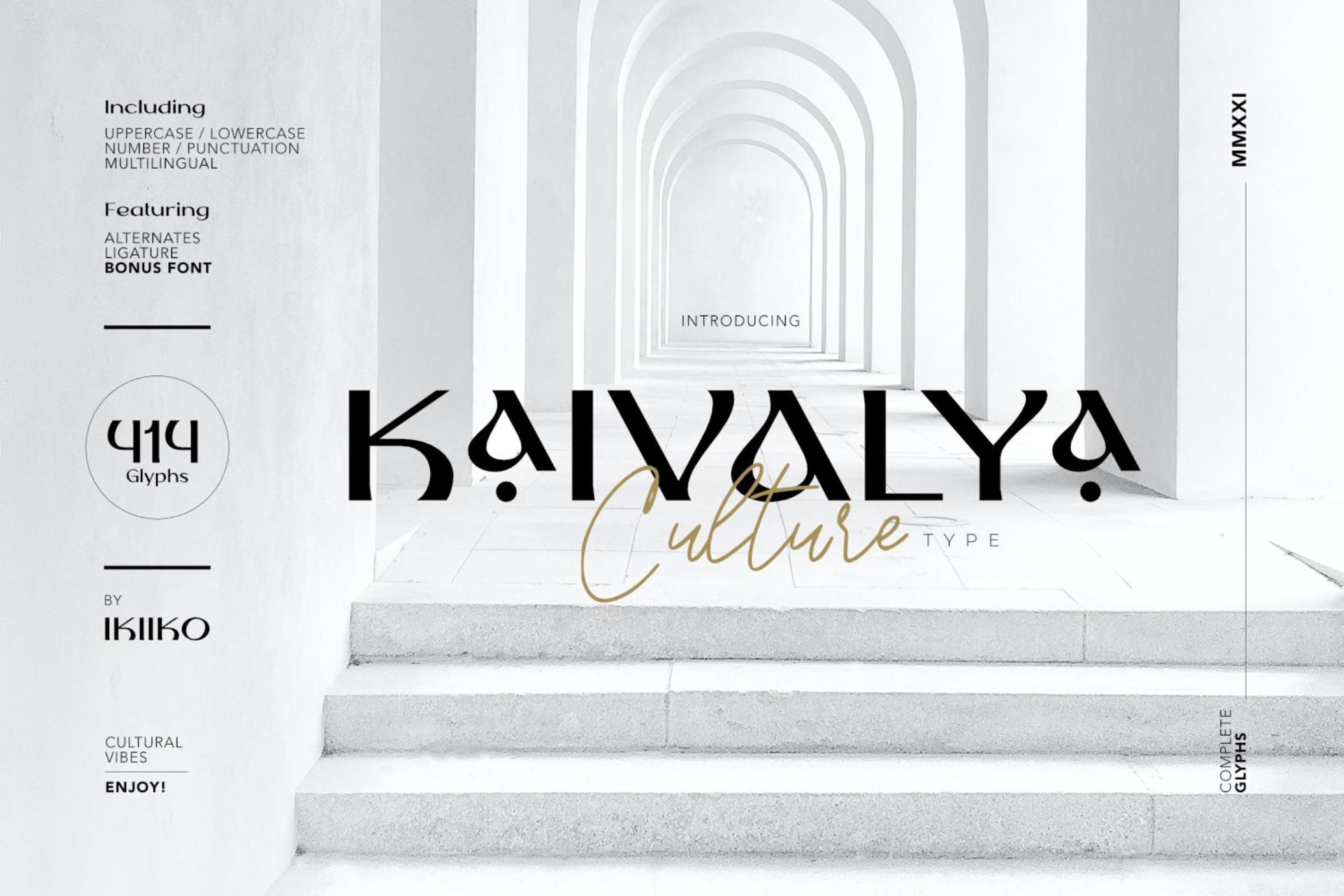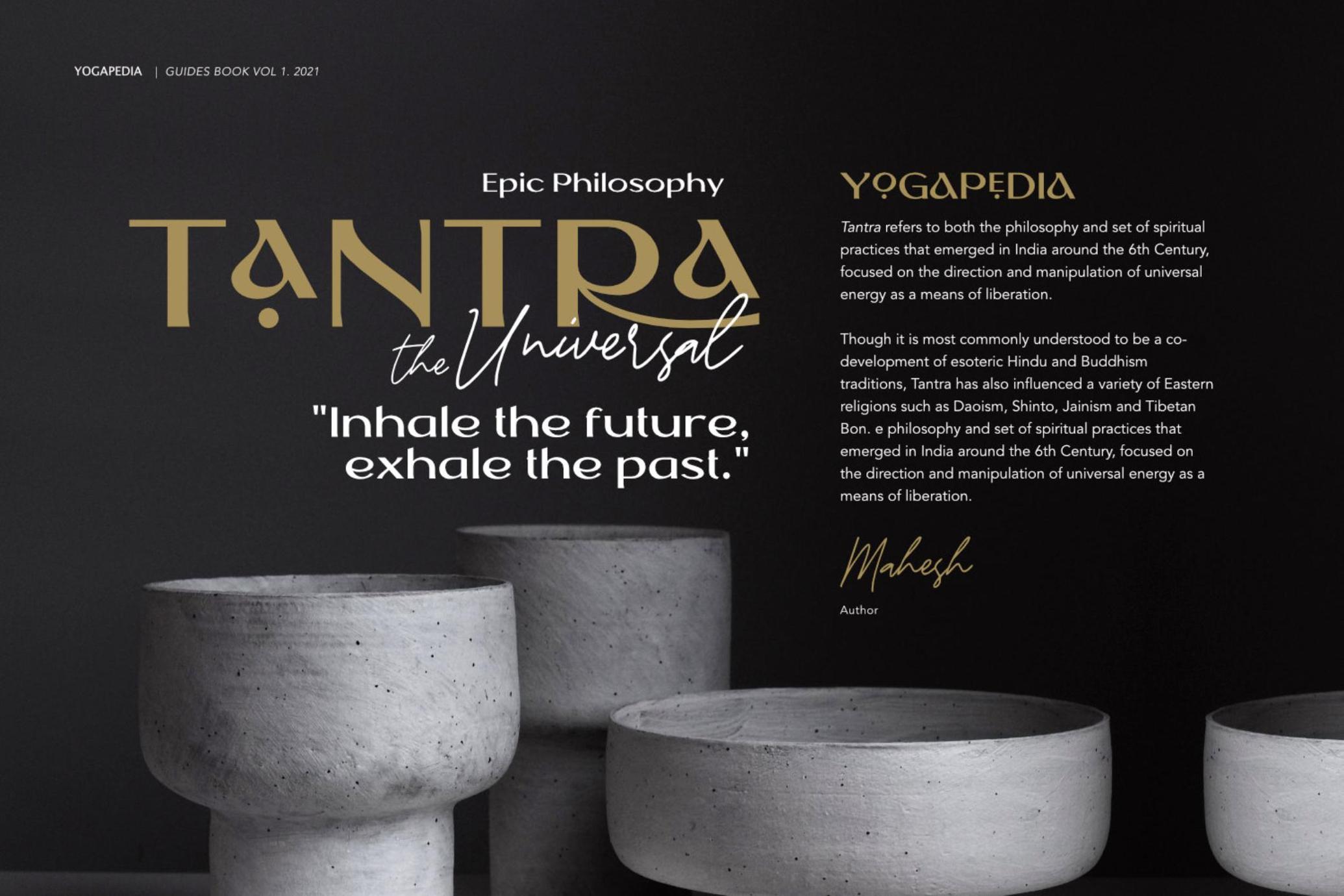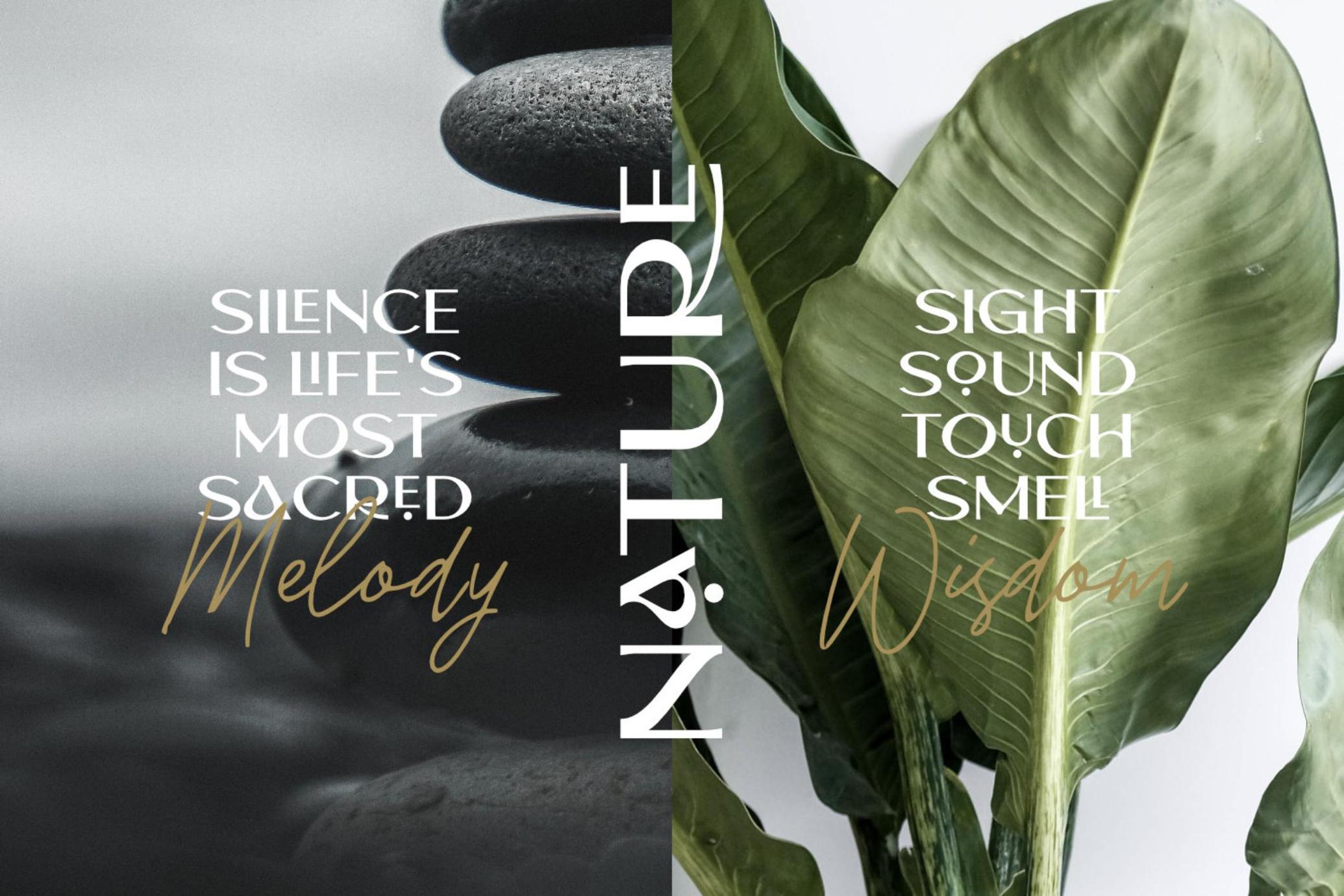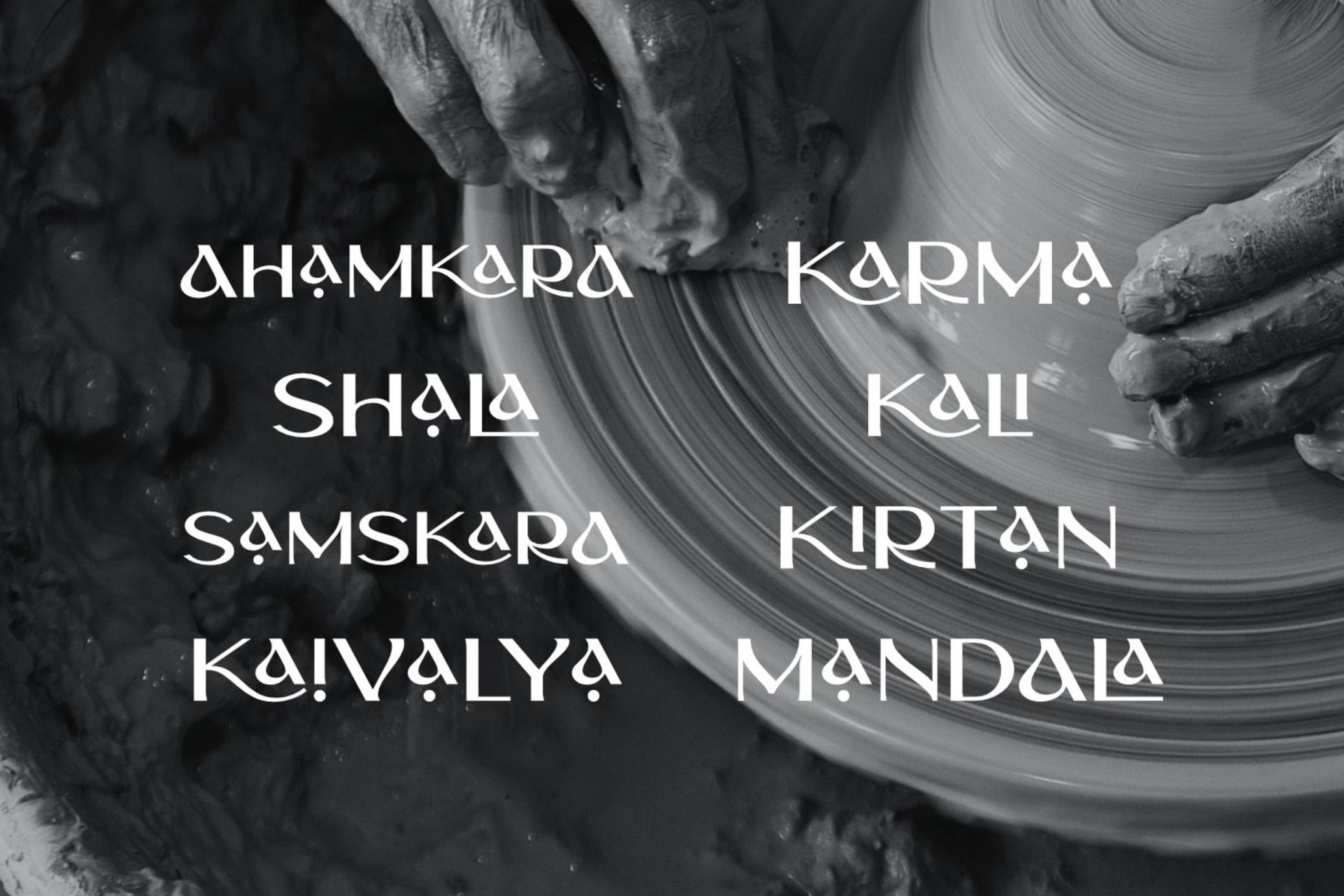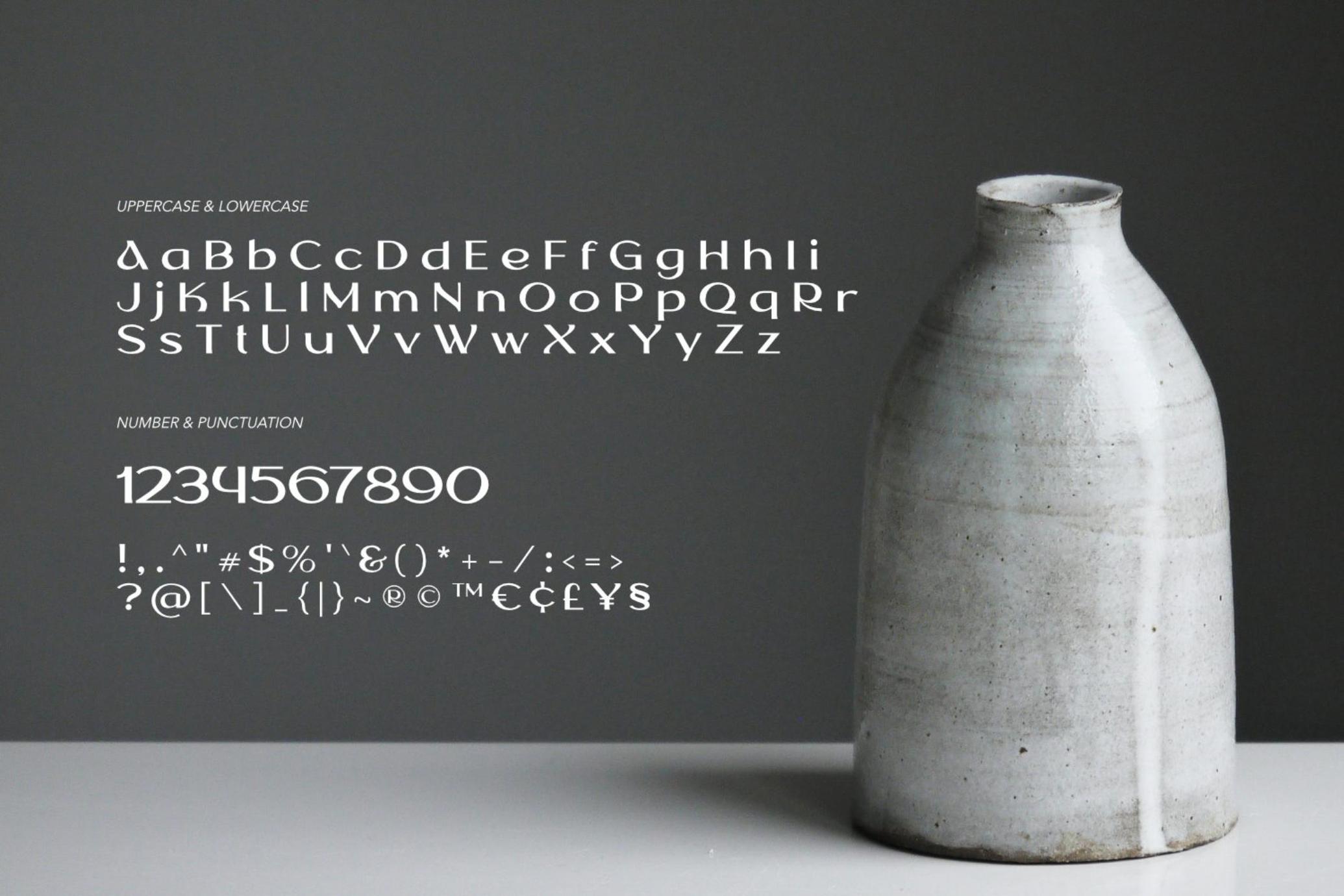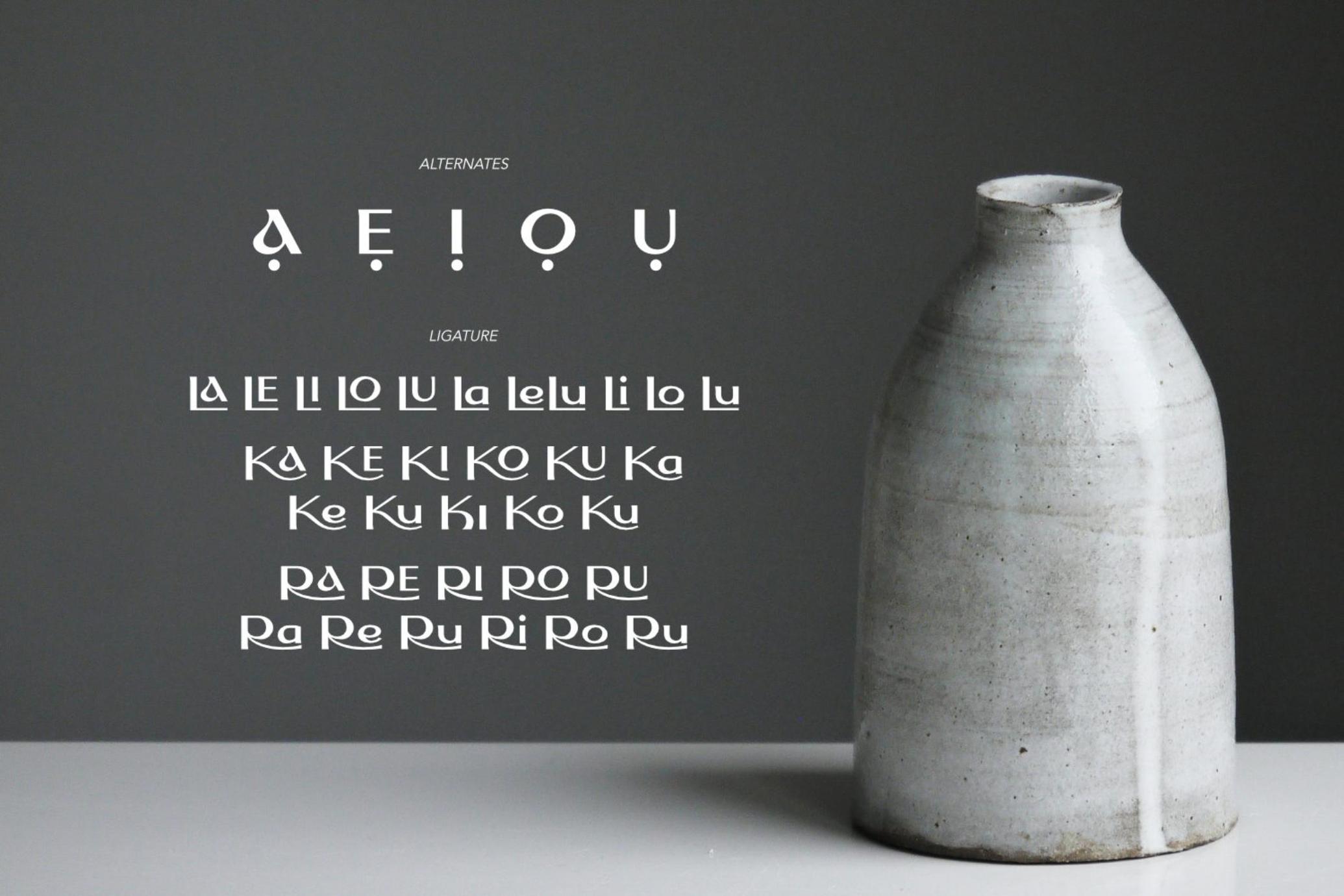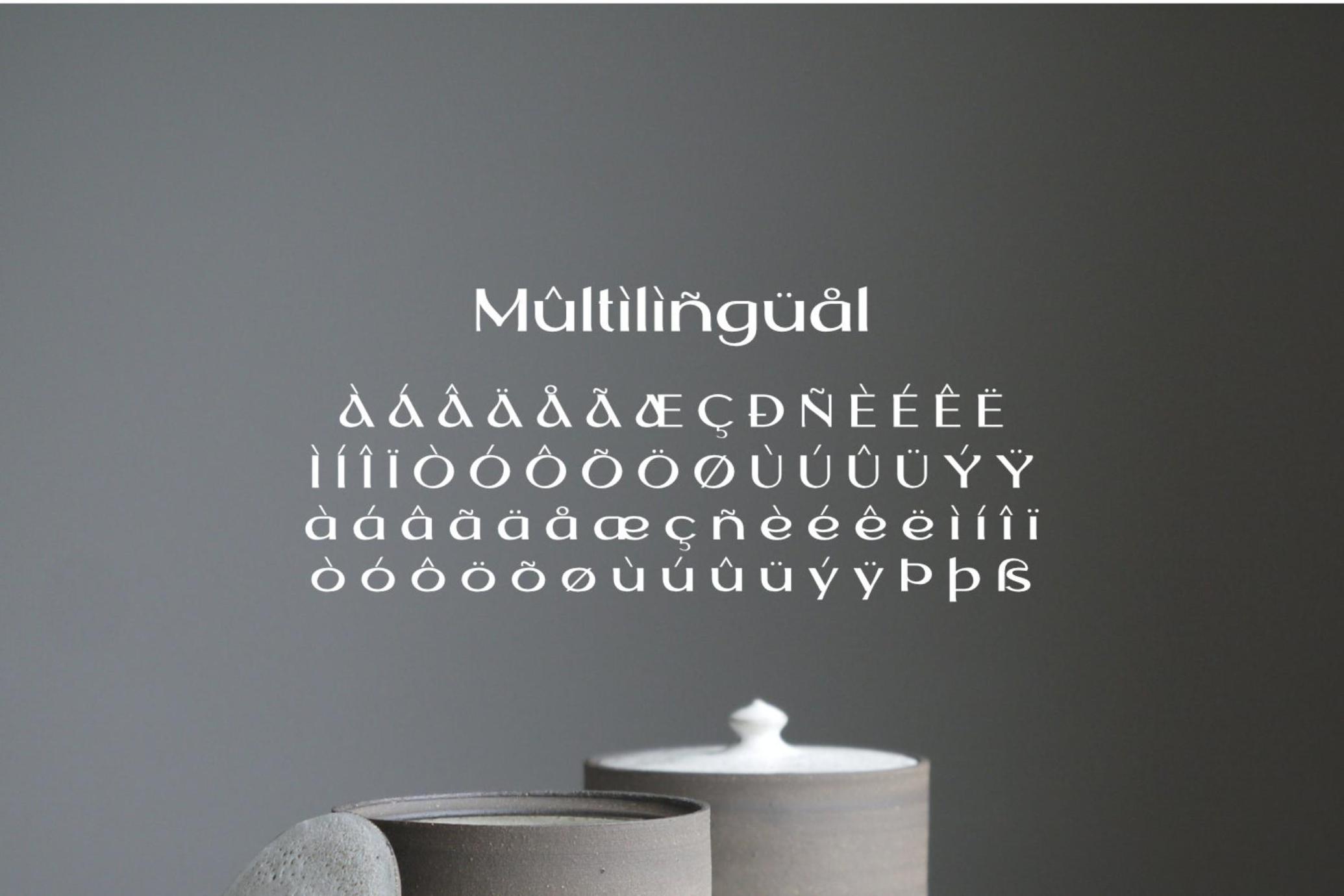
Kaivalya - Culture Font
A cultural font that has beautiful gestures, with a touch of tradition. Kaivalya is a serif typeface with many stylistic and ligature to choose. This typeface is perfect for an elegant logo, yoga & meditation stuff, beauty product, packaging product, spa, community logo, magazine, quotes, or simply as a stylish text overlay to any background image.
• Number & Punctuation
• Ligature & Alternates